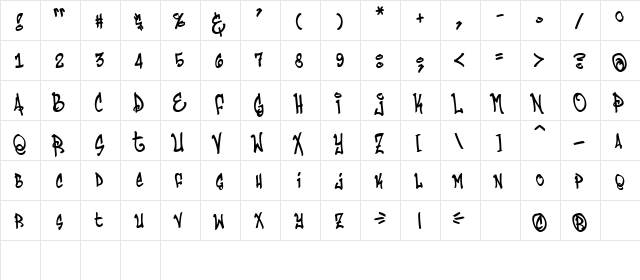
Humbucker Regular
Design Context for Humbucker Typeface
Humbucker is a composed and adaptable typeface that performs quietly and consistently across a wide range of design contexts.